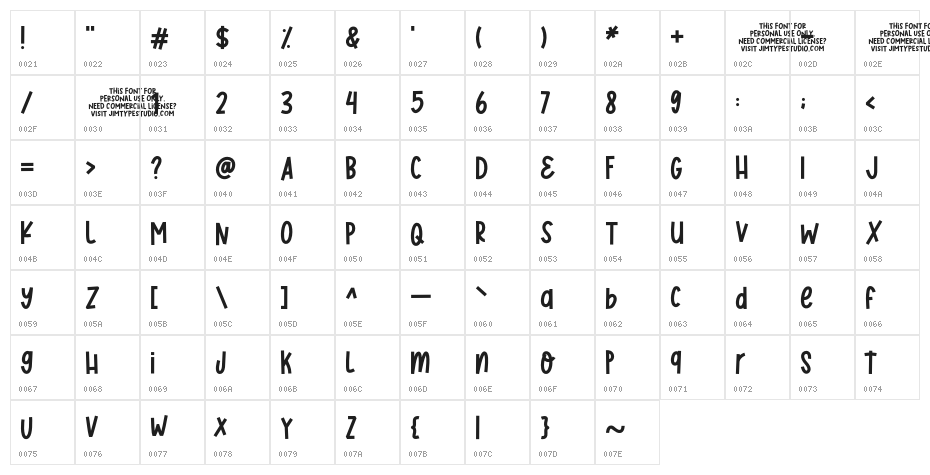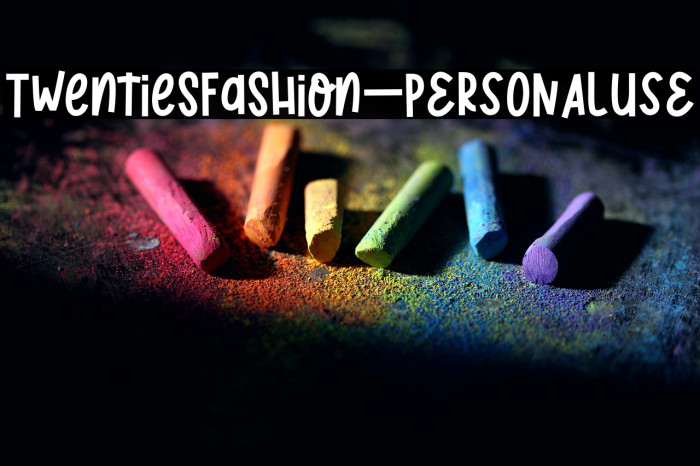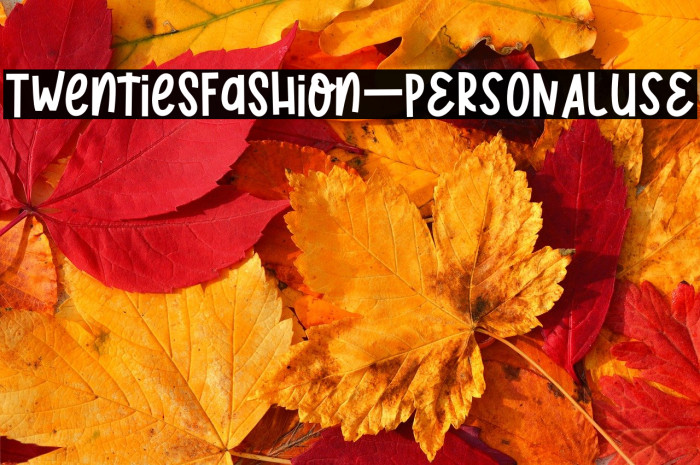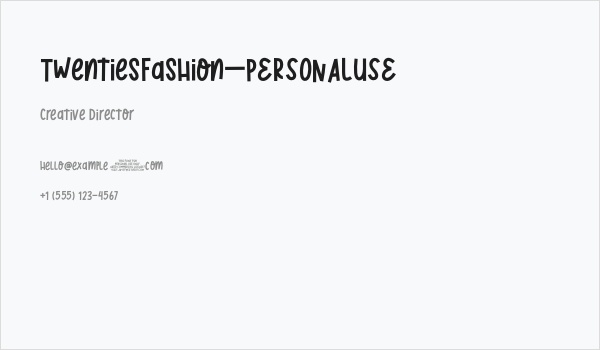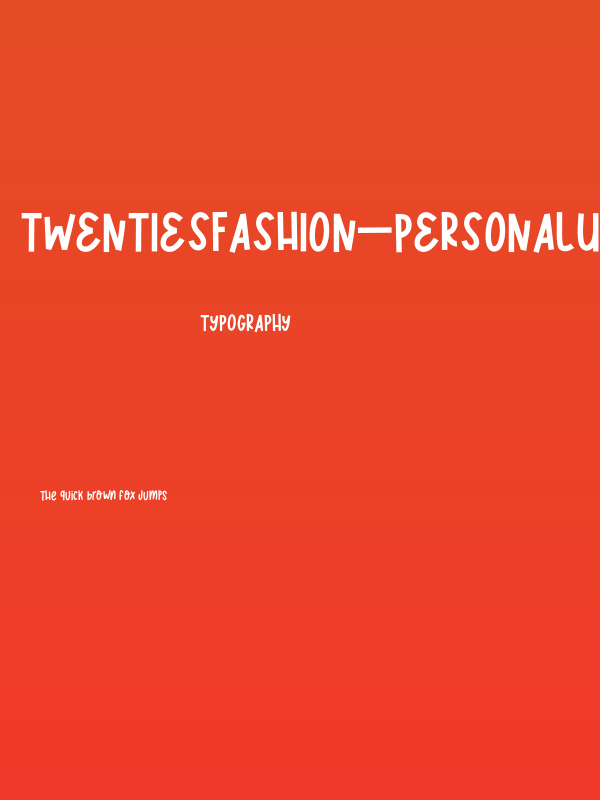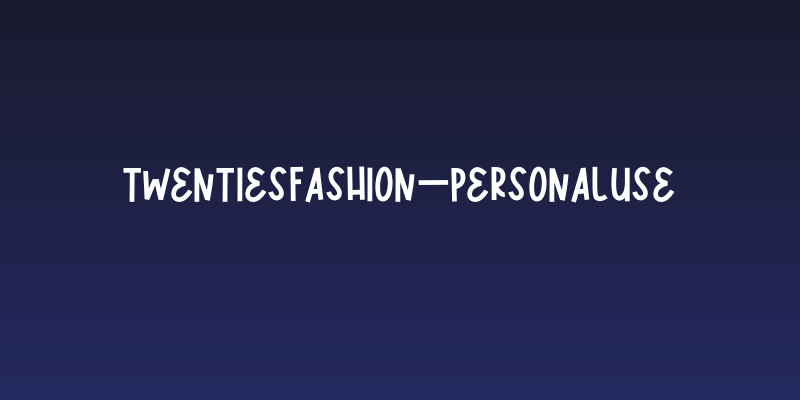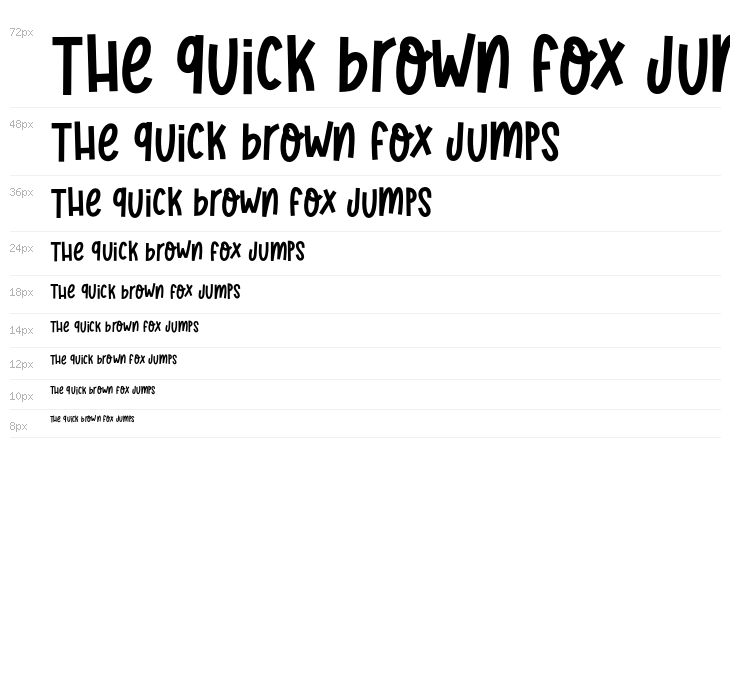
TwentiesFashion_PERSONALUSE Font
TwentiesFashion_PERSONALUSE Description
This font features a playful and bold design with a hand-drawn aesthetic. The characters are slightly irregular, giving it a casual and approachable feel. The uppercase and lowercase letters maintain a consistent style, with rounded edges and a slight slant that adds to its whimsical nature. The numbers and special characters follow the same design principles, ensuring uniformity across all glyphs. This font is ideal for projects that require a fun and informal touch, such as children's books, posters, or creative branding. Its unique style makes it stand out, while still being legible and versatile.
| Proposed Projects | Children's books, posters, creative branding, informal invitations. |